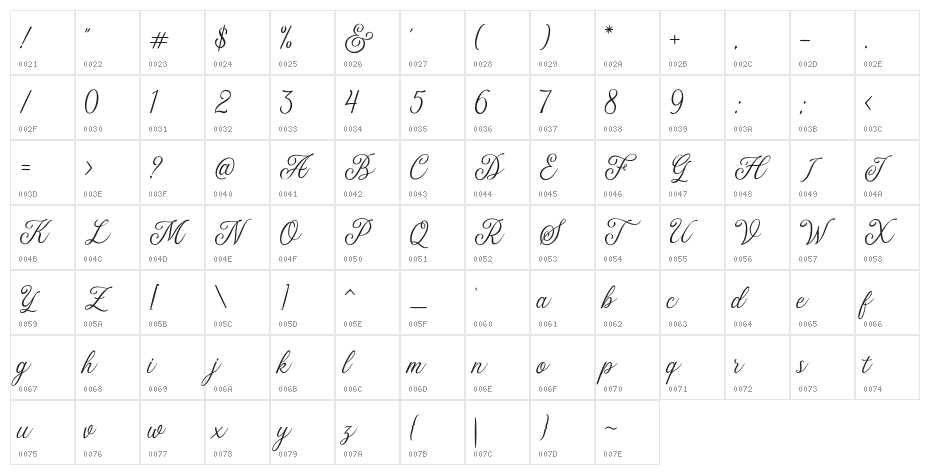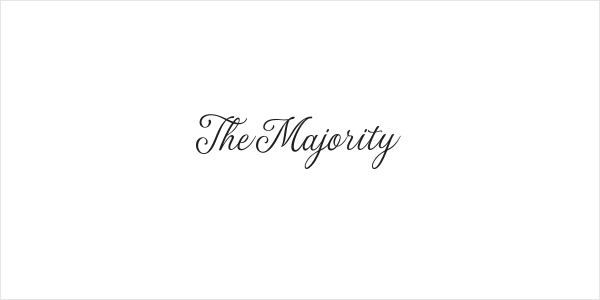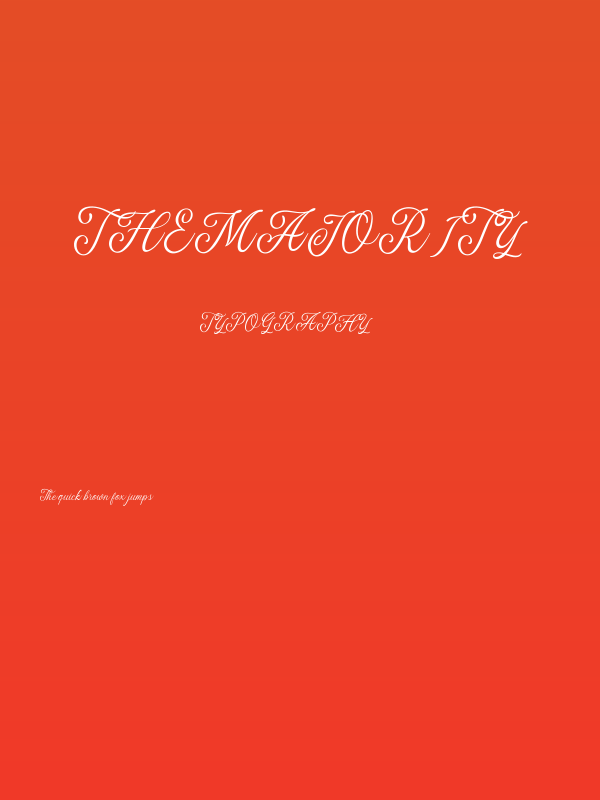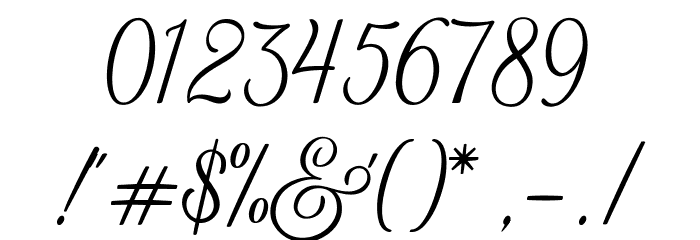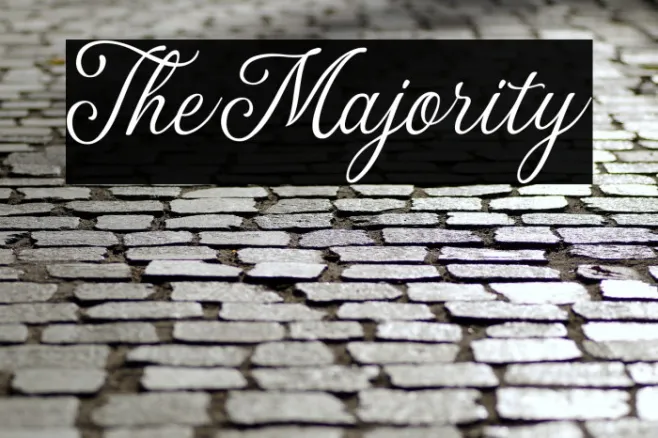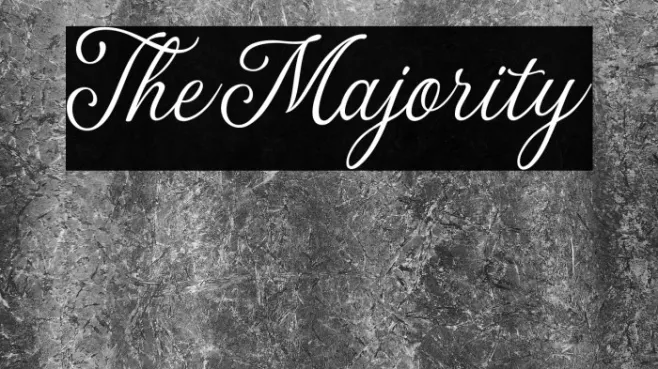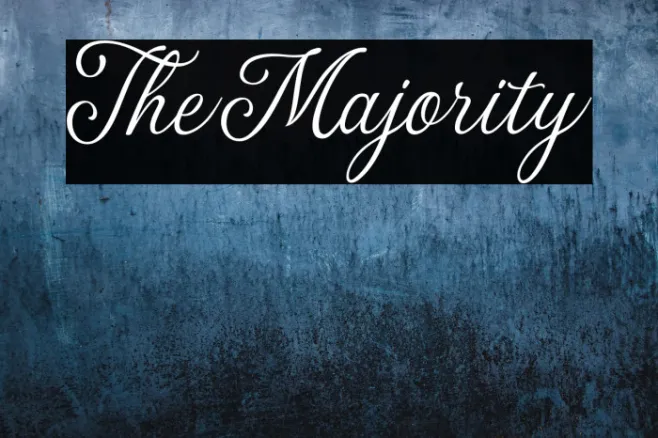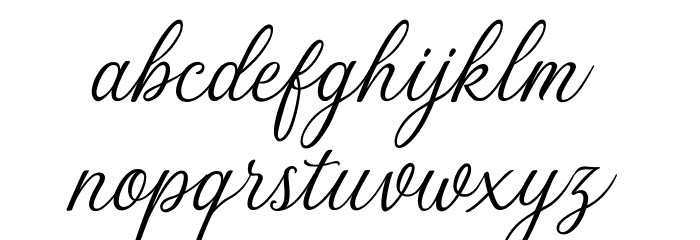
TheMajority Font
TheMajority Description
This elegant script font features flowing, interconnected characters that exude a sense of sophistication and grace. The uppercase letters are ornate, with intricate loops and flourishes, while the lowercase letters maintain a smooth, cursive style that complements the overall design. The numerals are distinct yet harmonize well with the alphabet, maintaining the font's cohesive aesthetic. Special characters are crafted with the same attention to detail, ensuring consistency across all glyphs. This font is perfect for projects that require a touch of elegance and refinement.